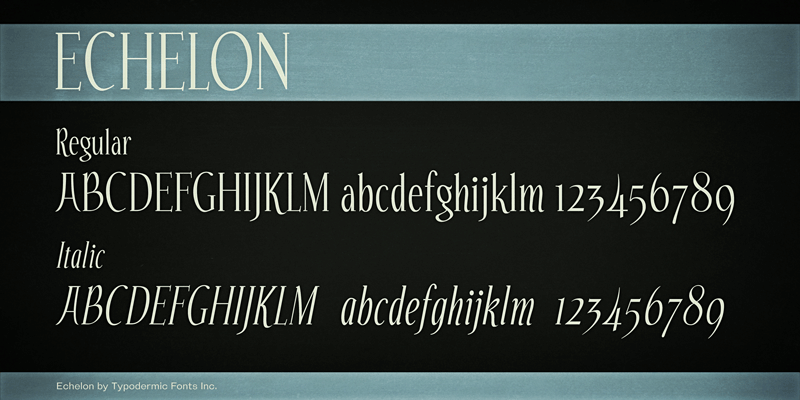
Echelon was created in late 1999 in vector editing software on a Palm computer; sort of an iPod Touch for the late 1990’s. It is, as far as I can recall, the only font I designed using something other than Fontographer/Fontlab. Almost all of Echelon’s characters were developed during a Toronto/Seattle return flight. I entered it into a font contest and won FontLab, which I still use to this day. I recently decided it was time to re-examine Echelon and make some upgrades. The new Echelon is more refined, supports more languages, includes more punctuation/math symbols and is still free. These fonts include a license that allows free commercial use: sometimes referred to as a desktop license. This allows you to install the fonts on a computer and use them to create posters, web graphics, game graphics, t-shirts, videos, signs, logos and more. Read the license agreement for details. If you'd like to embed these fonts in an app, ebook, on the web or anything that's not covered by the desktop license agreement, visit the link below. You'll find distributors who offer different types of licenses or you can contact me for help. http://typodermicfonts.com/echelon-the-sky-font/ |